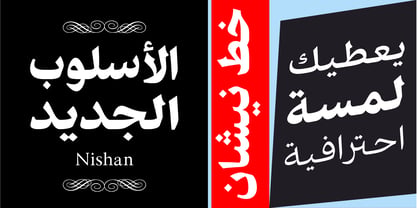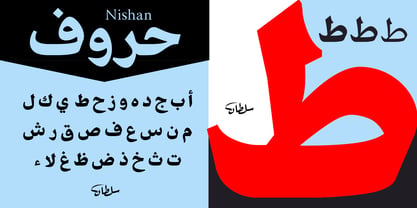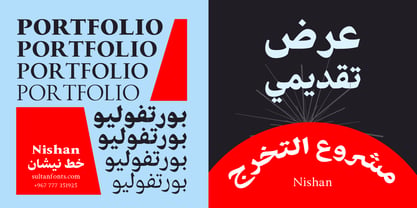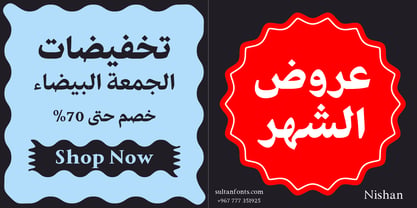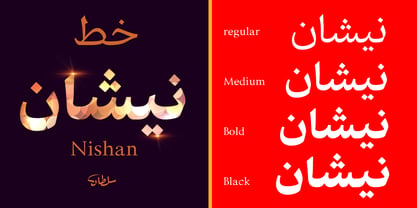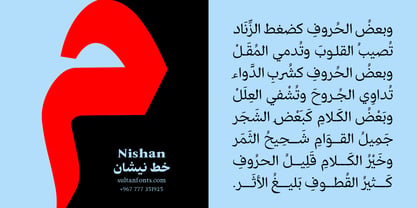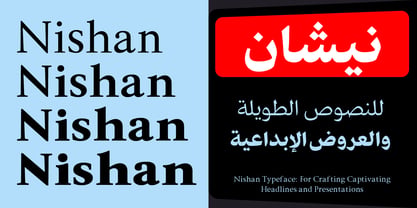
SF Nishan
by Sultan Fonts
The SF Nishan Font Family was designed by Sultan Maqtari and published by Sultan Fonts. SF Nishan contains 4 styles and family package options. More about this family
Nishan is a bold and versatile Arabic–Latin type family designed for clarity and impact. With its geometric balance and expressive rhythm, Nishan delivers confident typography across print and digital media. Available in four weights — Regular, Medium, Bold, and Black — it adapts beautifully to branding, advertising, packaging, and editorial design. Nishan combines precision and personality, making every word a statement.
Designers: Sultan Maqtari
Foundry: Sultan Fonts